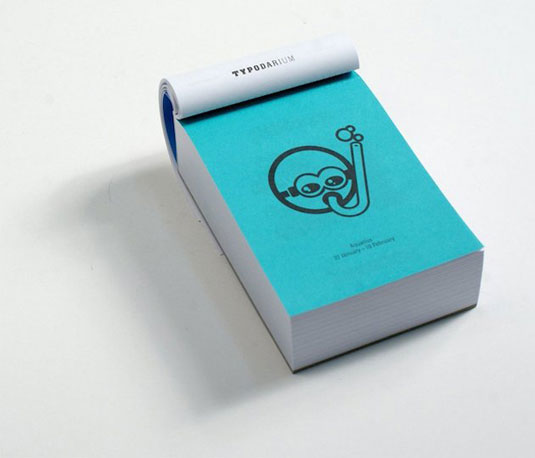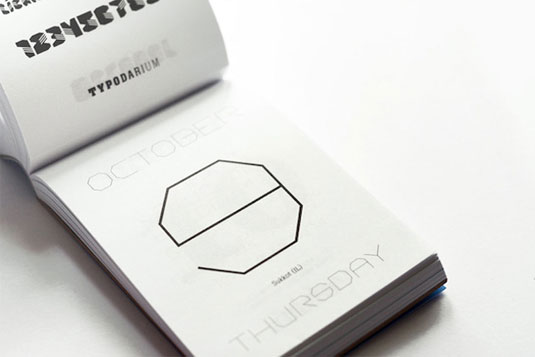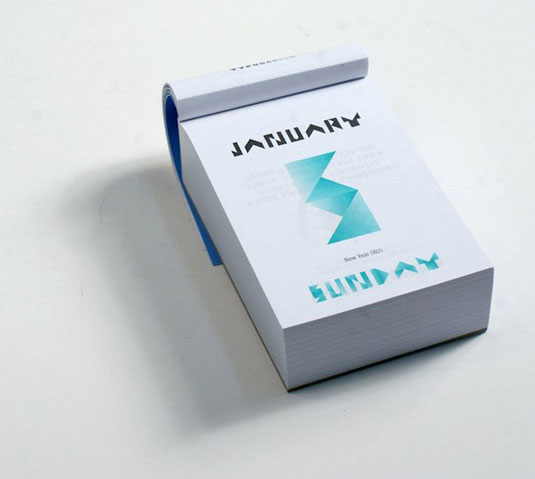
Font calendar gives you typography inspiration 365 days a year
This beautifully designed calendar gives you a daily dose of type for the whole of 2014.
We're already seeing some gorgeous examples of 2014 calendar designs - from the vector designs to illustrative efforts, there's sure to be some wonderful artwork adorning your desks and walls. Here, we've come across another beautiful design - this time for the font lover.
Since 2012, the team behind German design and typography magazine Slanted make it their job to find the"freshest, boldest, most successful and unusual" fonts to feature in their annual 'Typodarium' calendar.
For 2014, they have brought together 365 fonts - one for every day - by 232 designers and foundries from 26 countries. Previous calendars have come in bright and bold colours and this turquoise addition is no different. You'll certainly get your font-spiration here!